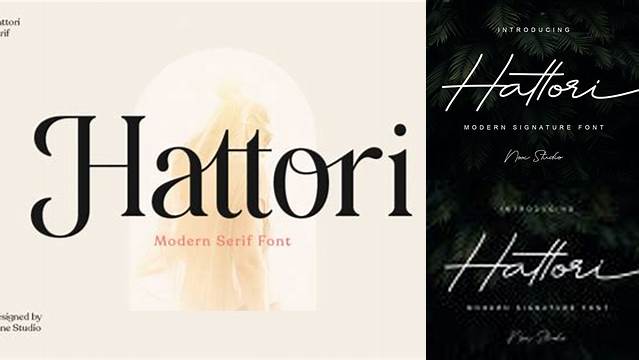
Hey guys! Ever stumbled upon a font that just screams elegance? Well, let's talk about the Hattori Elegant Font. It's sleek, stylish, and perfect for adding a touch of class to your projects. Plus, who doesn't love a free TTF download? Let's dive into everything you need to know about this font and how to get your hands on it.
What is Hattori Elegant Font?
Hattori Elegant Font is a typeface designed to bring sophistication and modernity to any design project. Its clean lines and balanced letterforms make it incredibly versatile, suitable for everything from branding to editorial design. The distinctive curves and refined edges give it a premium feel, ensuring that your text stands out with a touch of elegance. What sets it apart is its ability to maintain legibility while exuding sophistication. Whether you're working on a logo, a poster, or a website, Hattori Elegant Font can elevate your design, making it look polished and professional. Many designers love using this font for wedding invitations, upscale branding, and even for adding a stylish touch to digital content. So, if you are looking for a font that balances modern aesthetics with timeless elegance, Hattori Elegant Font might just be the perfect choice for your next project.
Hattori Elegant Font for Branding
When it comes to branding, the right font can make all the difference. Hattori Elegant Font is an excellent choice for brands that want to convey sophistication, modernity, and a touch of luxury. Its clean lines and refined letterforms create a visual identity that is both memorable and versatile. Whether you're designing a logo, creating marketing materials, or building a website, Hattori Elegant Font can help elevate your brand's image. Its legibility ensures that your message is clear and easy to read, while its elegant style adds a premium feel. Consider using Hattori Elegant Font for brands in industries like fashion, beauty, hospitality, and high-end services. The font's sleek appearance pairs well with minimalist designs, allowing your brand's message to take center stage. By incorporating Hattori Elegant Font into your branding strategy, you can create a cohesive and impactful visual identity that resonates with your target audience and sets you apart from the competition. Itβs a perfect way to show off your brand's elegant side!
Hattori Elegant Font for Web Design
Hattori Elegant Font can be a game-changer for web design, adding a touch of sophistication and visual appeal to your site. When choosing a font for your website, it's crucial to strike a balance between aesthetics and readability. Hattori Elegant Font excels in both areas. Its clean, refined lines make it easy on the eyes, ensuring that visitors can comfortably read your content. At the same time, its elegant style elevates the overall design, creating a premium and professional look. Consider using Hattori Elegant Font for headings, titles, and body text to create a cohesive and visually stunning website. Pair it with a simple, sans-serif font for supporting text to maintain readability and balance. When implementing Hattori Elegant Font on your website, ensure that you optimize it for web use. Use CSS to specify the font and adjust the font size, line height, and letter spacing to achieve the best possible appearance. Additionally, consider using web font formats like WOFF and WOFF2 to ensure compatibility across different browsers. With Hattori Elegant Font, your website will not only look beautiful but also provide an enjoyable user experience. It's all about making a great first impression!
Hattori Elegant Font for Print Design
For print design, Hattori Elegant Font shines as a versatile and sophisticated choice. Whether you're creating brochures, posters, invitations, or business cards, this font can add a touch of elegance and professionalism to your printed materials. Its clean lines and refined letterforms ensure that your text is legible and visually appealing. Hattori Elegant Font is particularly well-suited for projects where you want to convey a sense of luxury, sophistication, or modernity. When using Hattori Elegant Font in print design, pay attention to the details. Adjust the font size, leading, and kerning to achieve optimal readability and visual balance. Consider using different weights of the font to create visual hierarchy and emphasize important information. Additionally, choose paper stock and printing techniques that complement the font's elegant style. For example, using a high-quality paper with a smooth finish can enhance the font's clean lines and refined details. With Hattori Elegant Font, your print designs will stand out with a touch of class, making a lasting impression on your audience. Make your print materials shine!
Conclusion: Embrace the Elegance of Hattori Font
In conclusion, Hattori Elegant Font is a fantastic choice for anyone looking to add a touch of class and sophistication to their designs. Its versatility makes it suitable for a wide range of projects, from branding to web design to print design. By understanding the licensing considerations, installation processes, and best practices for using Hattori Elegant Font, you can create designs that are both beautiful and effective. So go ahead, download Hattori Elegant Font, and start creating designs that stand out with elegance and style. Whether you're a seasoned designer or just starting out, Hattori Elegant Font is a valuable tool that can help you achieve your creative goals. Embrace the elegance of Hattori Font and let your designs shine!